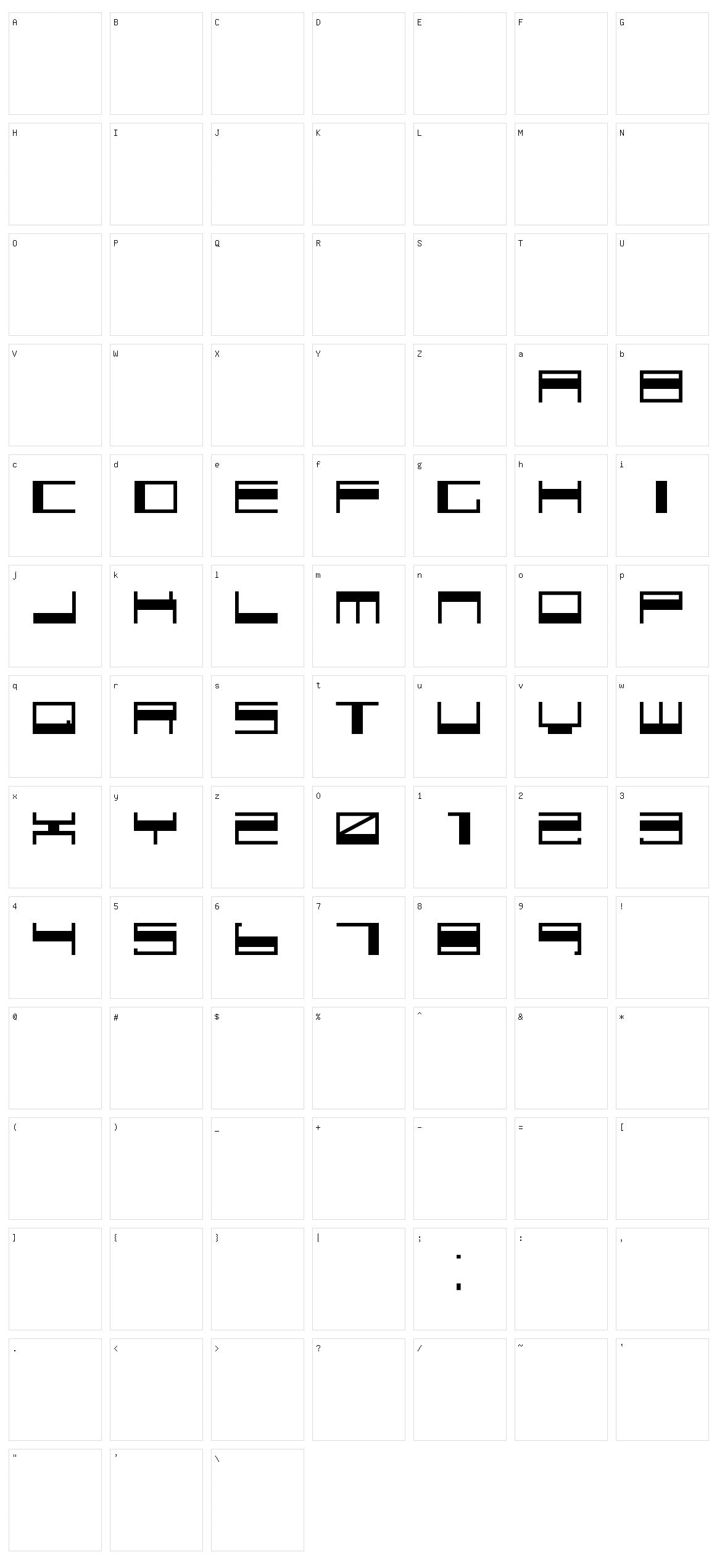
The free font Voker is carefully designed by Qbotype Fonts, showcasing a thoughtful balance of creativity and usability and falls under the Square font style. When you download the ZIP file, it contains only 3.55 KB of font files, making it lightweight and quick to download. Please review the license details below to understand permitted usage and distribution rights. If license information is not available, we recommend using this font for personal projects only or contacting the author directly for commercial usage permissions.